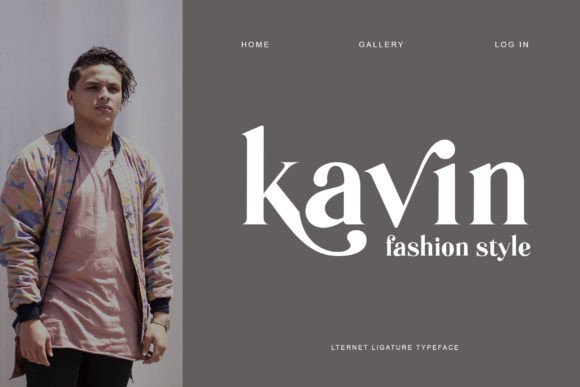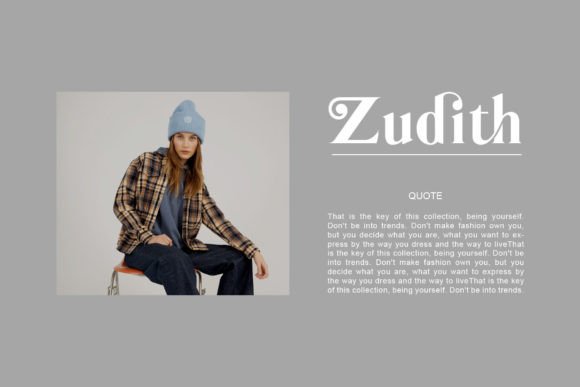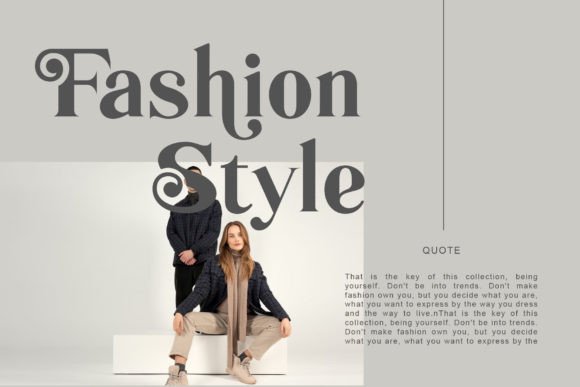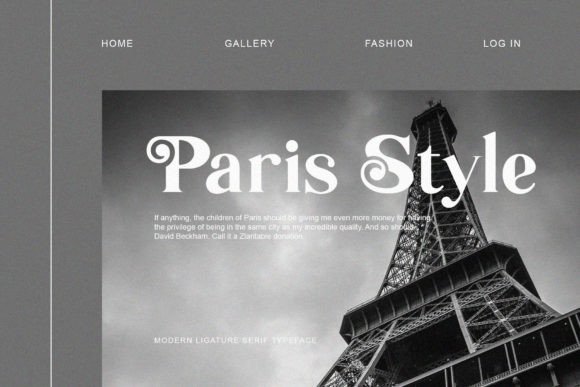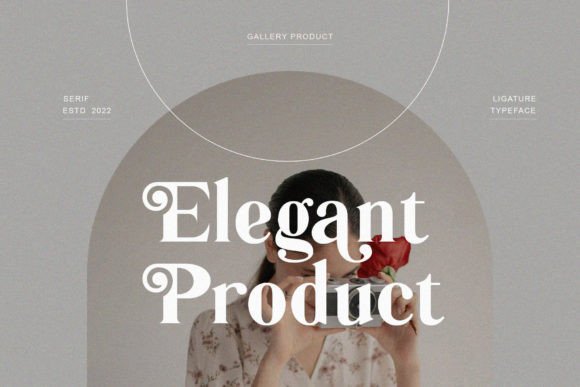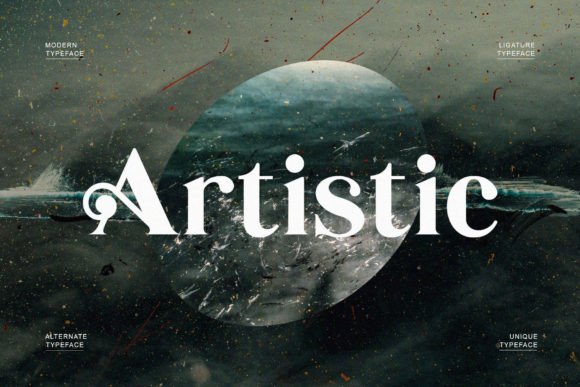
Introducing Balugia Font: Elevate Your Designs with Sophistication and Elegance
In the world of typography, fonts play a crucial role in conveying the tone and aesthetic of a design. For those seeking to create luxurious, elegant, and feminine projects, the Balugia font is an exceptional choice. This sophisticated, charming serif font is specifically designed to add a fashionable touch to modern, chic designs. In this article, we’ll explore the features, benefits, and uses of the Balugia font, making it a must-have for designers and crafters.
What Makes Balugia Font Stand Out?
Balugia is a meticulously crafted serif font that exudes sophistication and elegance. Its unique design elements make it perfect for luxury projects, such as high-end fashion brands, upscale events, and refined product packaging. The font’s classic serif features are infused with a modern twist, giving it a fresh and contemporary feel.
One of the standout features of Balugia is its exceptional legibility. The font’s carefully designed letterforms ensure that text remains clear and readable, even at smaller sizes. This makes it an excellent choice for body text, as well as headlines and titles.
The Perfect Font for Feminine and Elegant Projects
Balugia’s design is characterized by its feminine and elegant aesthetic, making it an ideal choice for projects that require a touch of sophistication. The font’s flowing lines, delicate curves, and refined details create a sense of luxury and refinement. Whether you’re designing a logo, brochure, or website, Balugia is sure to elevate your project to new heights.
The font’s versatility is another significant advantage. Balugia can be used for a wide range of applications, from fashion and beauty to lifestyle and hospitality. Its adaptability ensures that it will seamlessly integrate with your brand’s unique style and tone.
Key Features of Balugia Font
- Sophisticated serif design: Balugia’s classic serif features are perfect for creating elegant and refined designs.
- Fashionable touch: The font’s modern twist gives it a fresh and contemporary feel, ideal for luxury projects.
- Exceptional legibility: Balugia’s carefully designed letterforms ensure that text remains clear and readable.
- Feminine and elegant aesthetic: The font’s flowing lines and delicate curves create a sense of luxury and refinement.
- Versatile: Balugia can be used for a wide range of applications, from fashion and beauty to lifestyle and hospitality.
In conclusion, the Balugia font is an exceptional choice for designers and crafters seeking to create sophisticated, elegant, and feminine designs. Its unique blend of classic serif features and modern twist makes it perfect for luxury projects. With its exceptional legibility, versatility, and elegant aesthetic, Balugia is sure to elevate your designs to new heights. Whether you’re working on a fashion brand, upscale event, or refined product packaging, Balugia is the perfect font to add a touch of sophistication and elegance.